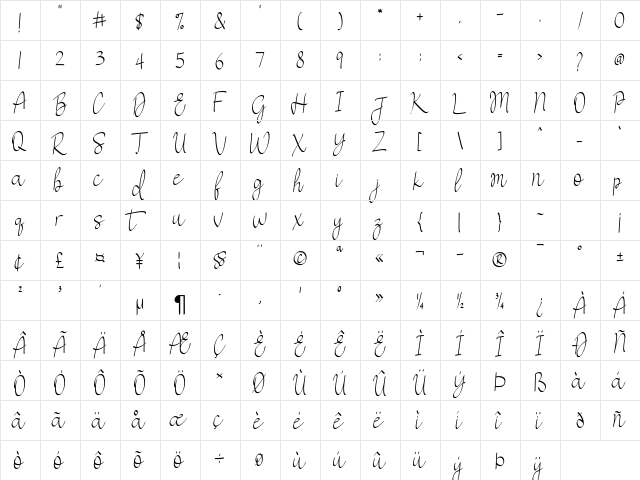
Driana Regular Font Preview
Driana Regular
Driana Regular Font Details
| Designer | AEN Creative Studio 2019 |
Design Context for Driana Typeface
Driana is a composed and adaptable typeface that performs quietly and consistently across a wide range of design contexts.